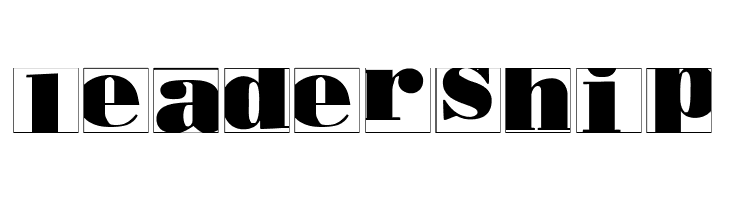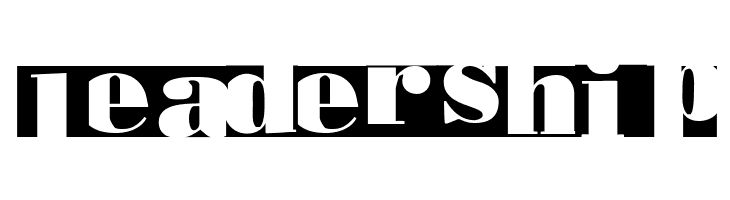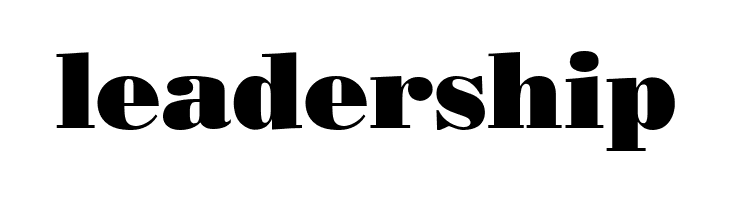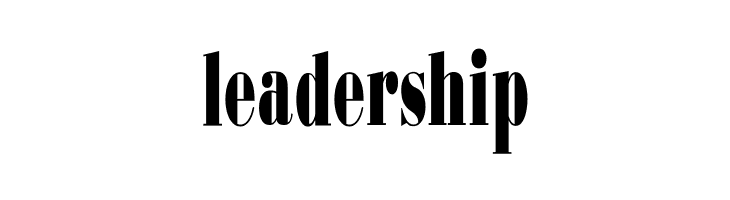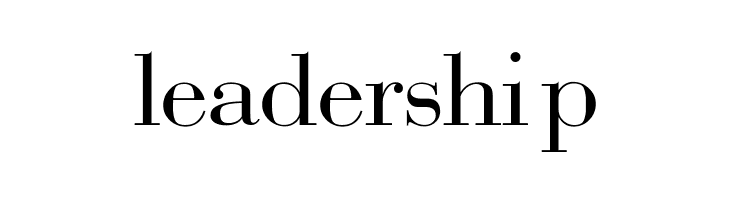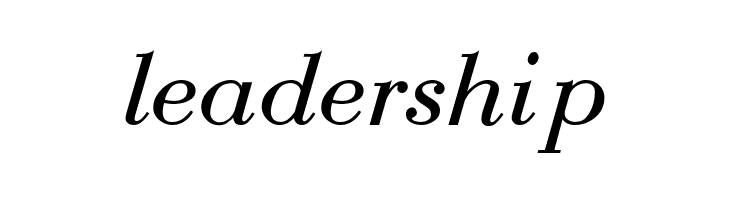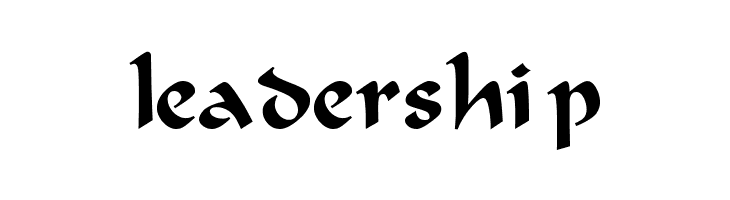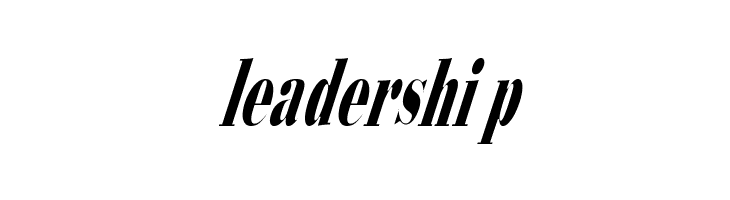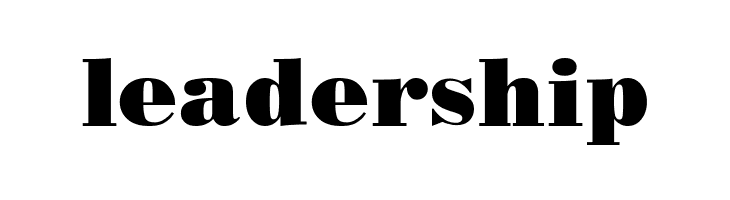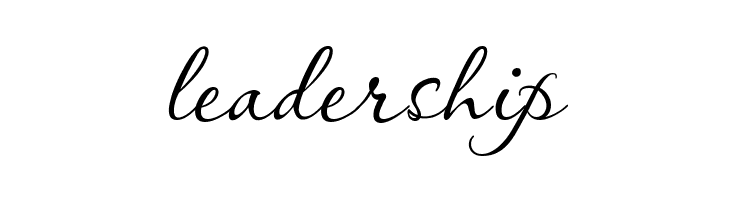
A high-contrast, elegant serif font with sharp serifs and a modern aesthetic.
A bold, angular font with a modern and edgy style.
A bold, geometric outline font with sharp angles and a modern style.
A pixelated, monospaced font with a retro digital aesthetic.
A classic serif font with high contrast and elegant serifs.
A playful, rounded font with a hand-drawn feel and consistent weight.
A bold, stencil-like font with geometric shapes and sharp angles.
A bold, high-contrast font with geometric and artistic elements.
An ornate, decorative font with intricate embellishments and a classic serif structure.
A classic serif typeface with high contrast and sharp serifs, exuding elegance and sophistication.
A bold, textured serif font with a vintage, distressed look.
A high-contrast serif font with a rough, vintage texture and elegant style.
A high-contrast serif font with sharp serifs and a refined, elegant style.
A classic serif font with high contrast and elegant serifs.
A classic, high-contrast serif font with a semi-compressed style.
An elegant serif font with high contrast and sharp serifs.
A classic serif font with high contrast and elegant proportions.
A bold, high-contrast font with elegant serifs and a luxurious style.
A bold, high-contrast serif typeface with dramatic serifs and strong vertical emphasis.
A bold, high-contrast serif font with a condensed and elegant style.
A classic serif typeface with high contrast and sharp serifs, exuding elegance and sophistication.